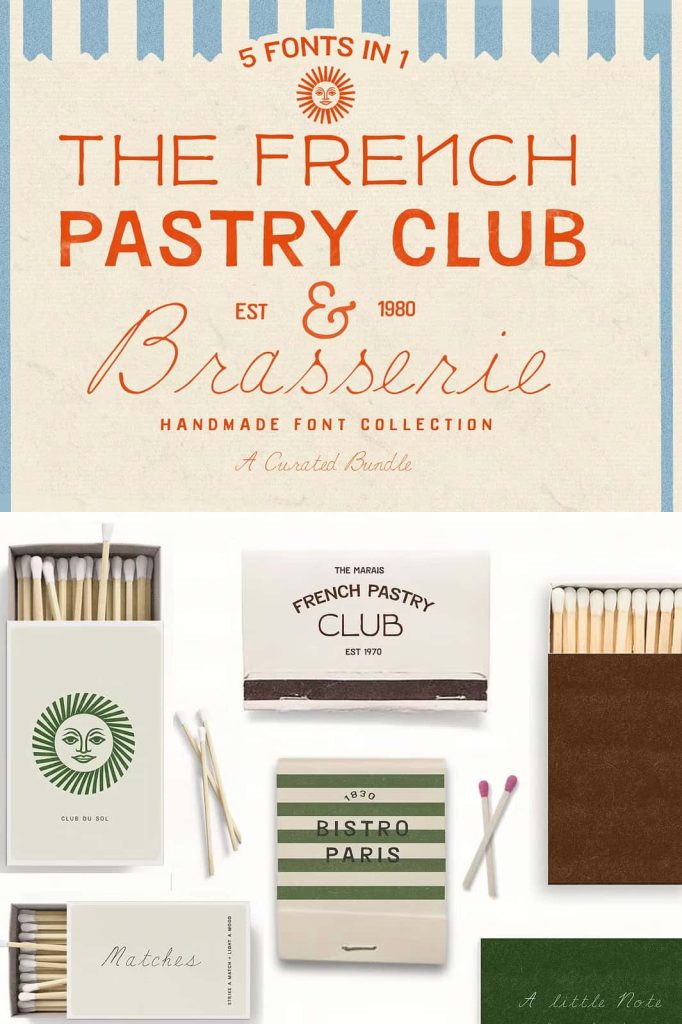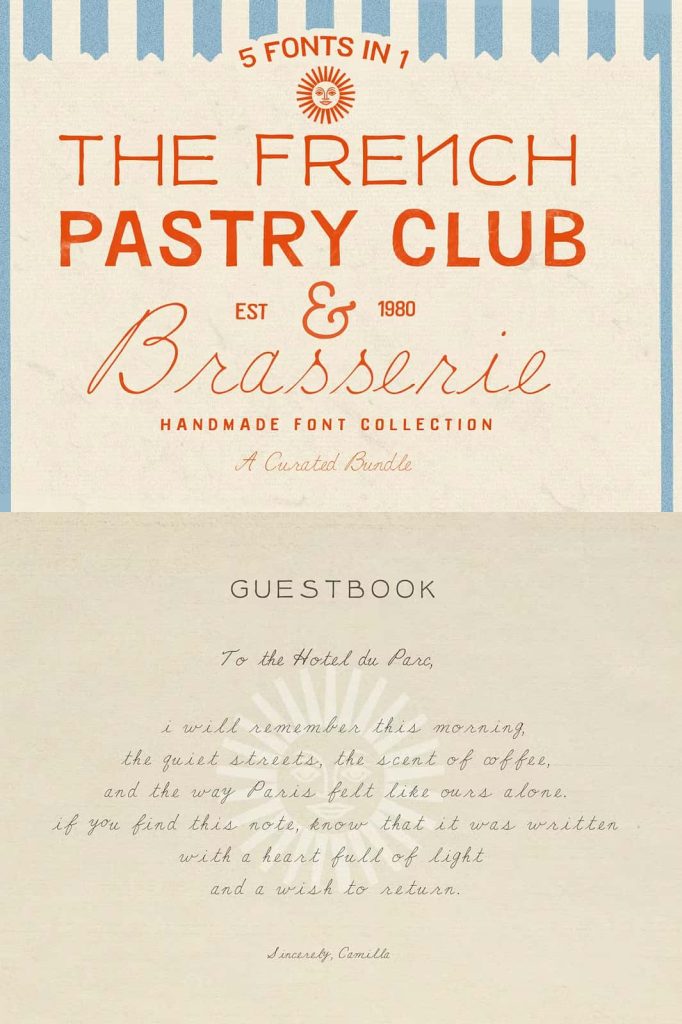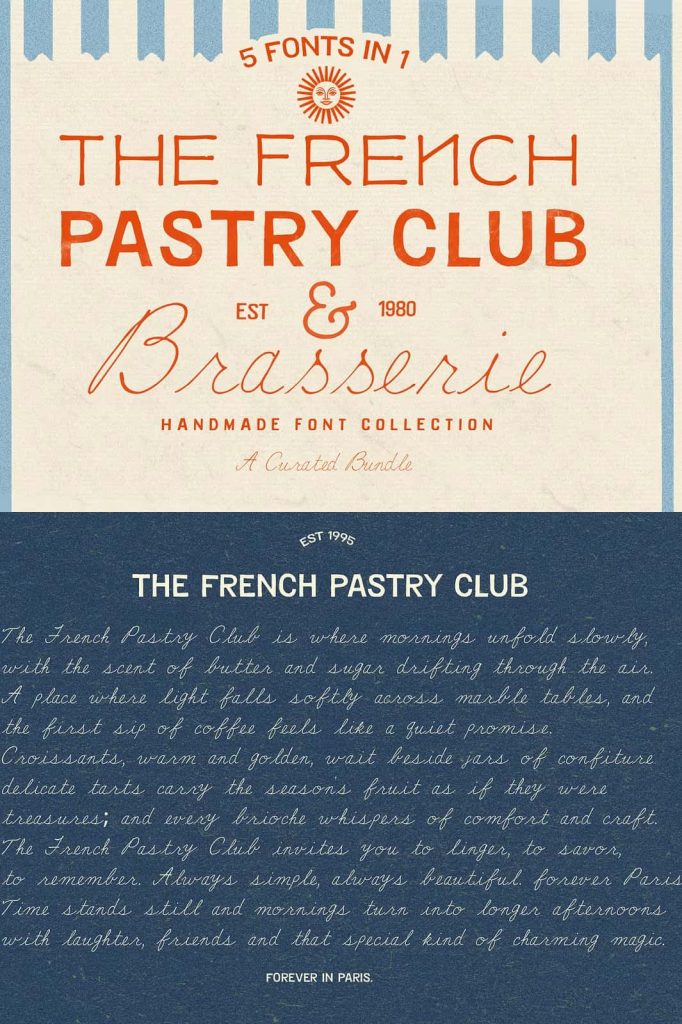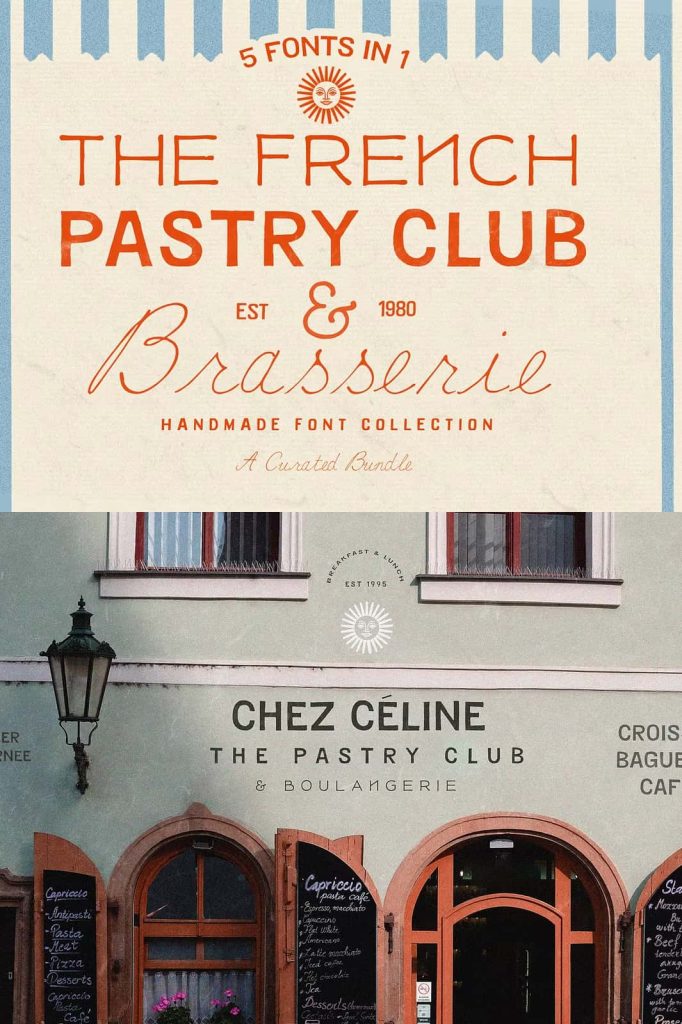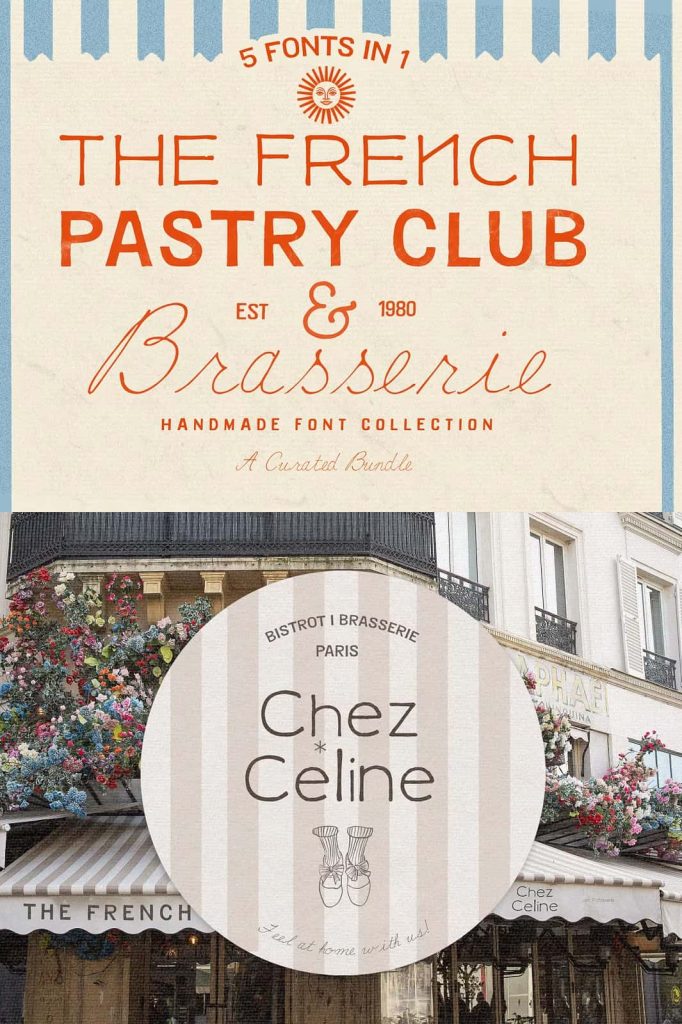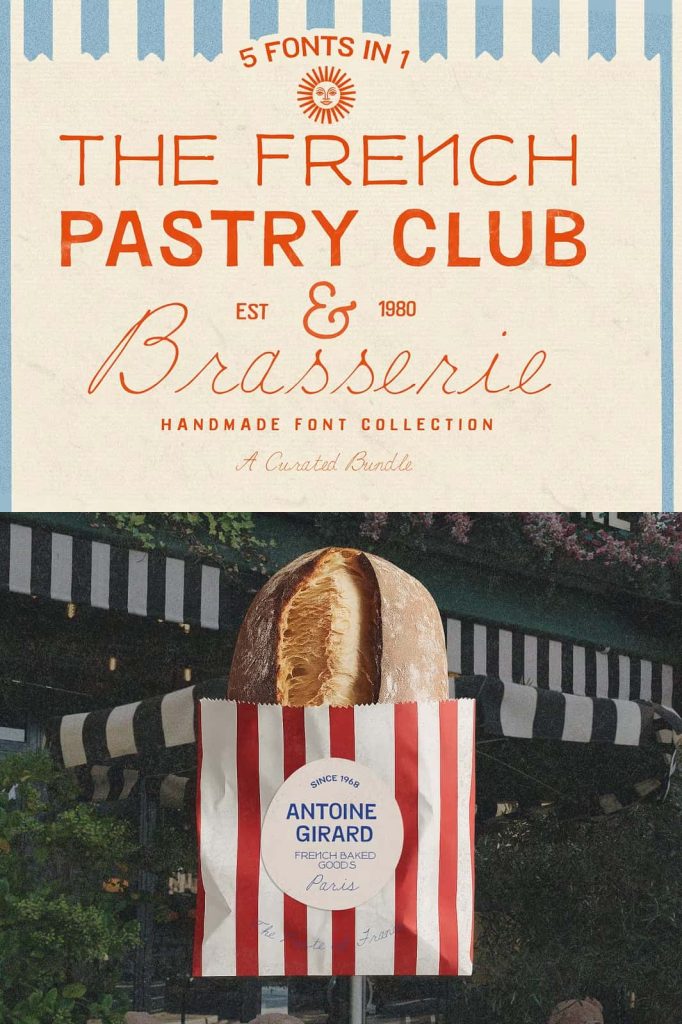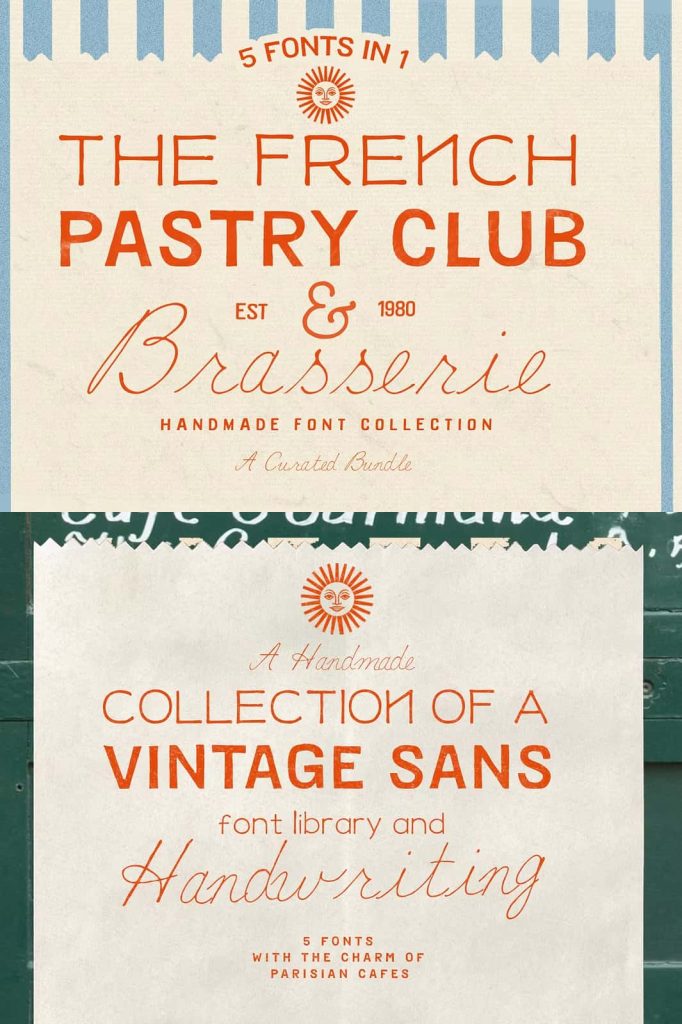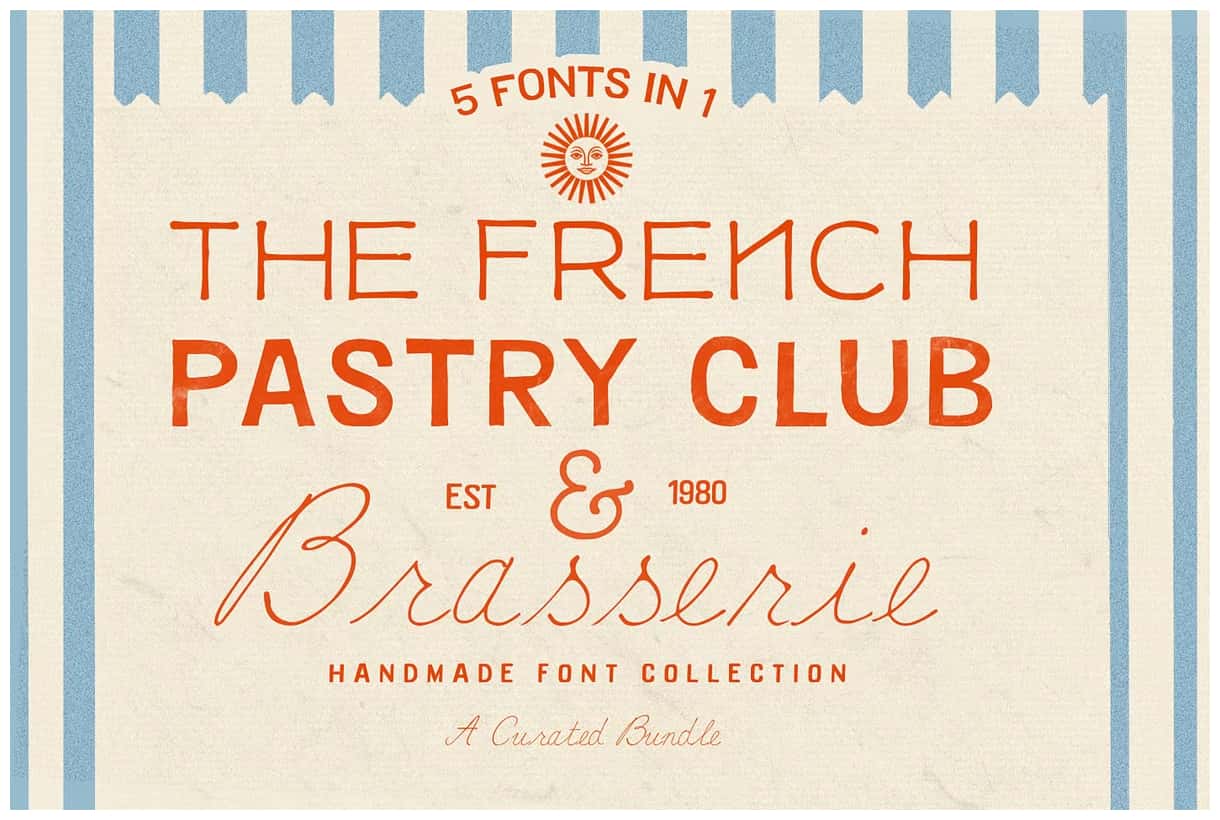
Discover the art of typography through this stunning collection of five handwritten premium fonts, each crafted with precision, care, and passion. Designed for creatives who value authenticity and beauty, these fonts offer a perfect blend of personality, craftsmanship, and versatility.
Handcrafted with Love and Artistic Excellence
Each font in this collection has been handcrafted with utmost love and care by skilled lettering artists. Unlike mass-produced typefaces, these fonts are inspired by natural handwriting, delivering the charm of human touch in every letter. Whether you’re designing branding materials, wedding invitations, product packaging, or social media graphics, these fonts will infuse your work with soul and sophistication.
The attention to detail ensures smooth lines, balanced spacing, and a consistent aesthetic that remains readable and graceful across different applications. Every typeface carries a story—crafted not by machines, but by the heart and hand of an artist dedicated to creating timeless design tools.
Perfect Pairing: Vintage Sans Serif and Sublime Handwritten Notes
This collection beautifully combines vintage sans serif fonts with elegant handwritten note fonts. The contrast between clean, classic sans serif structures and expressive handwritten curves creates a dynamic balance that elevates your design projects. The curated selection allows you to mix and match typefaces seamlessly, ensuring visual harmony across headlines, body text, and decorative elements.
Use the sans serif fonts for clarity and structure, while the handwritten styles add a touch of warmth and personality. Together, they echo the charm and grace of a bygone era—perfect for brands, designers, and creatives who want to evoke authenticity, nostalgia, and sophistication.
Why Choose These Handwritten Premium Fonts
Choosing the right font is more than a design decision—it’s a way to express your brand’s identity. These handwritten premium fonts are ideal for designers who seek:
- Authentic craftsmanship: Every letter is drawn by hand, reflecting individuality and care.
- Versatility: Suitable for logos, branding, invitations, posters, stationery, and web design.
- Emotional connection: Handwriting naturally conveys warmth, trust, and creativity.
- Vintage appeal: Perfect for designs inspired by classic typography and timeless aesthetics.
When you use these fonts, you’re not just adding text—you’re giving life to your message. The organic flow of handwritten lines paired with the discipline of sans serif letters helps you communicate more effectively while leaving a lasting impression.
Bring Grace and Character to Your Designs
Every designer knows the power of typography to transform a simple concept into a work of art. With this premium handwritten font collection, you can infuse every project with elegance and character. Whether you’re crafting a brand identity, creating heartfelt invitations, or building a stylish website, these fonts deliver beauty that speaks to the senses.
Add charm, personality, and a touch of nostalgia to your creative journey with fonts that embody both artistry and precision. Experience the harmony between vintage inspiration and modern craftsmanship—because great design begins with great typography.
Conclusion
This collection of five handwritten premium fonts is more than a typographic set—it’s a celebration of artistry and timeless design. Each letterform has been shaped with emotion, ensuring your projects stand out with genuine style and sophistication. Let your creativity flourish with these handcrafted typefaces that elevate every word you create.